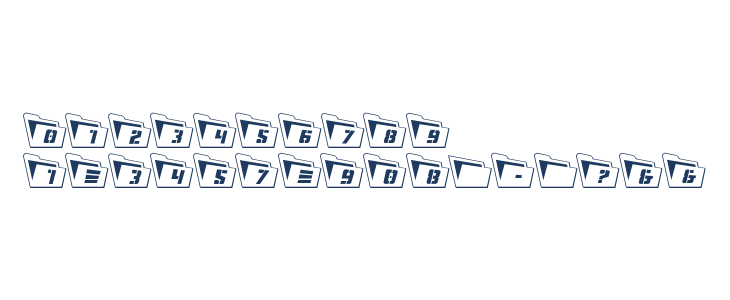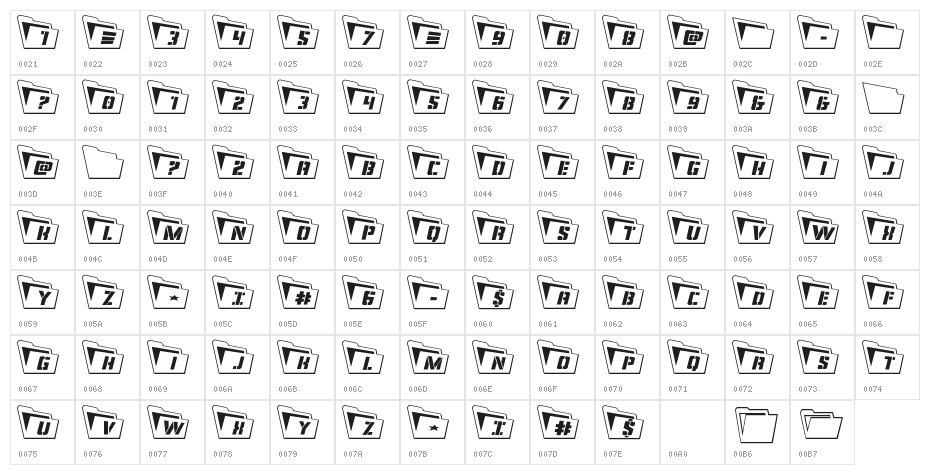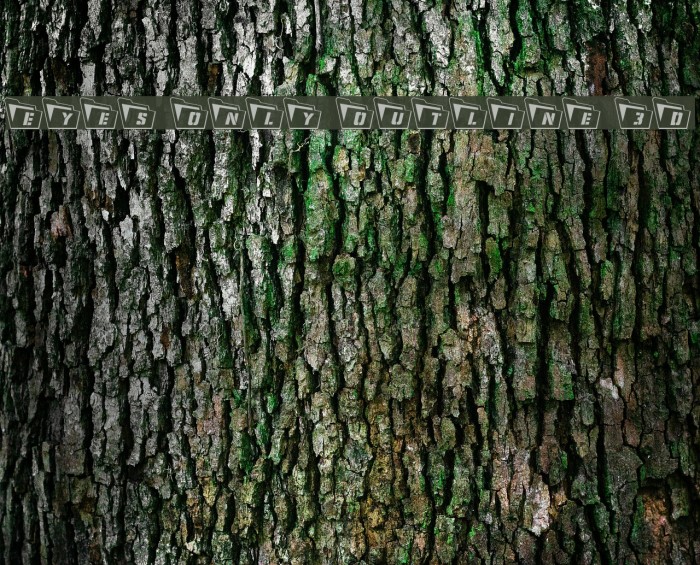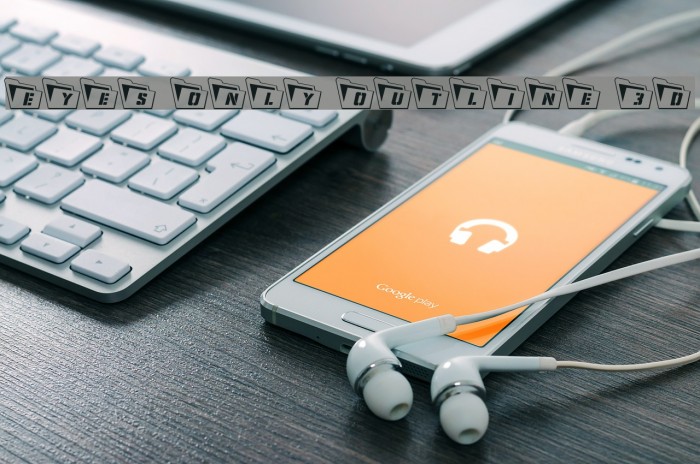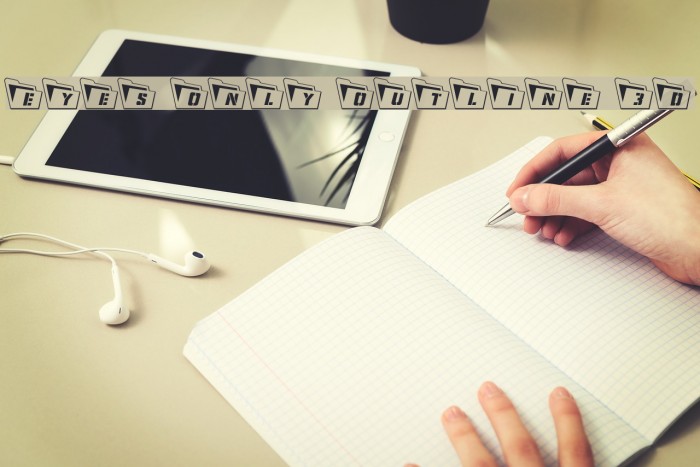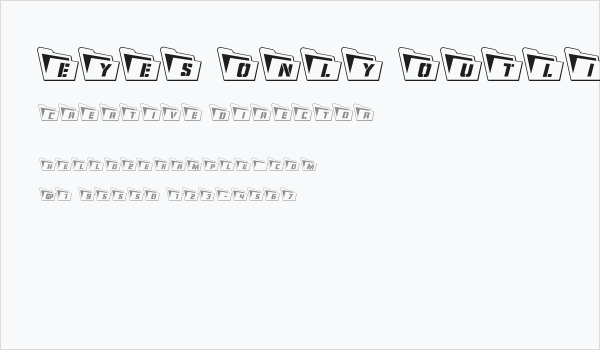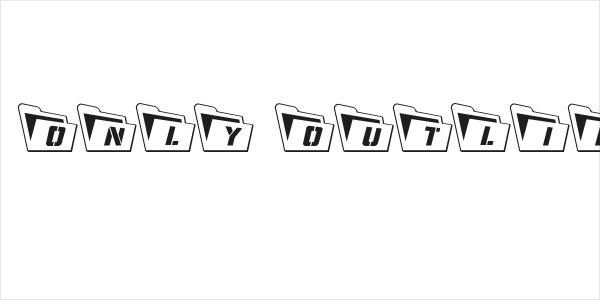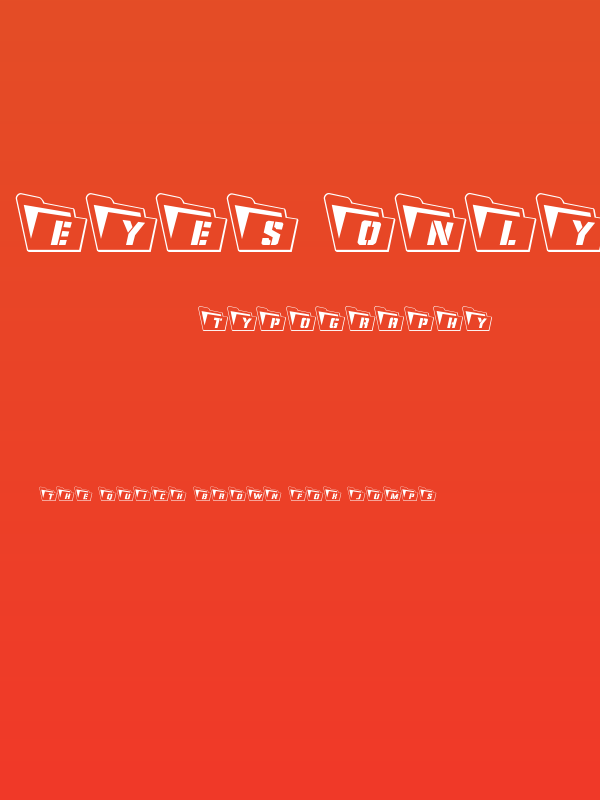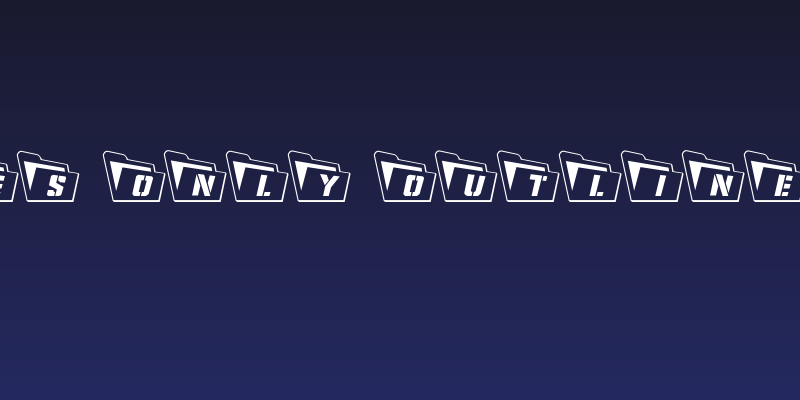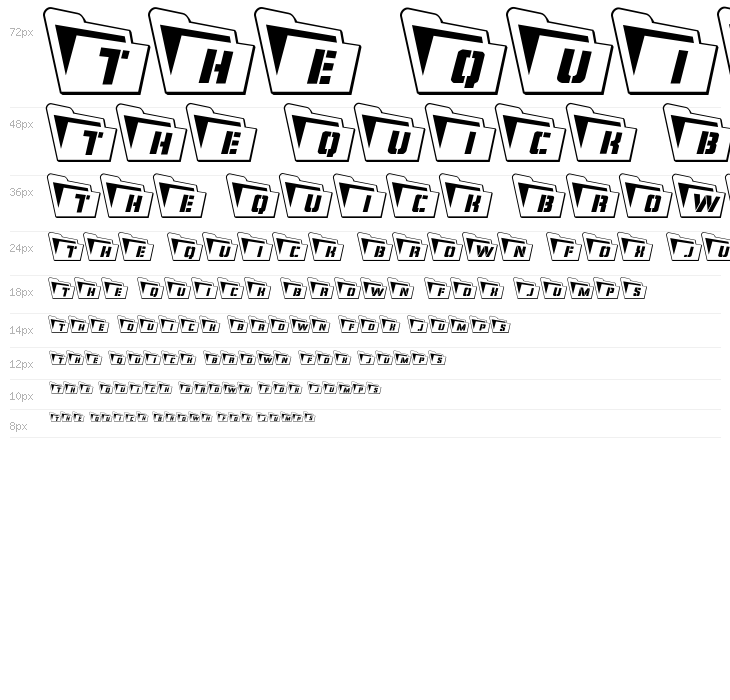
Eyes Only Outline 3D Font
Eyes Only Outline 3D Description
This font features a bold, three-dimensional outline style that gives each character a dynamic and futuristic appearance. The letters and numbers are encased in a folder-like shape, adding a unique visual element. The design is angular and geometric, with a strong emphasis on sharp edges and clean lines. The boldness of the characters is complemented by the 3D effect, which creates a sense of depth and movement. This font is highly decorative and stands out due to its distinctive style, making it suitable for eye-catching designs.
| Overall Style | Futuristic, Dynamic |
| Proposed Projects | Ideal for projects requiring a standout, modern look such as tech-themed posters, video game titles, or futuristic branding. |